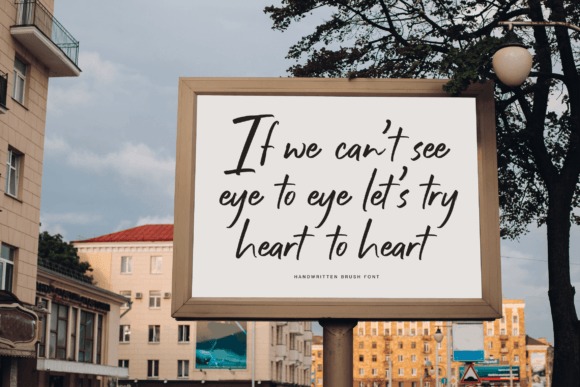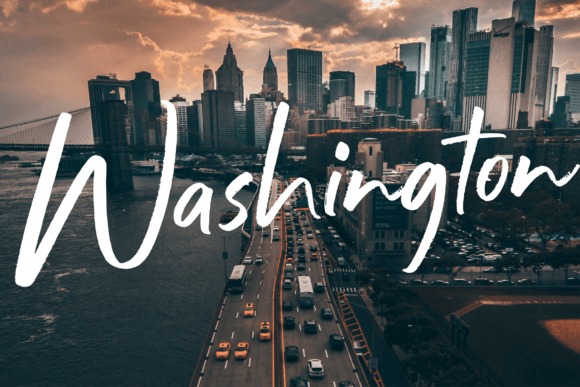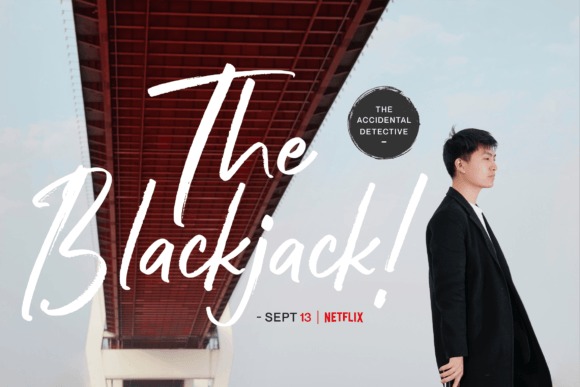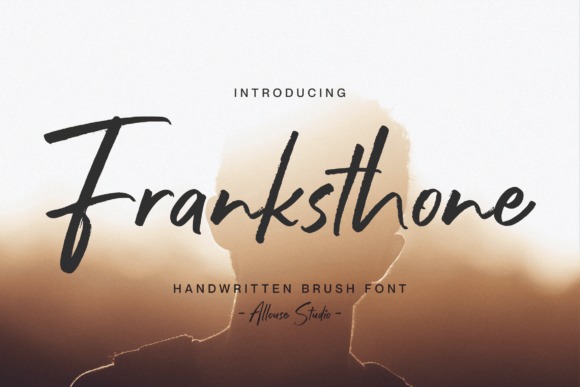
Franksthone Brush Font
This is a handwritten brush script designed to charm your projects. From quotes and packaging to whatever else, this font will send the message you desire.